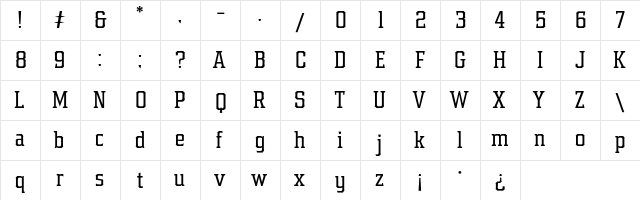
Samton Condensed
| Foundry | Ilham Herry Type Supply |
| Designer | Ilham Herry |
Design Context for Samton Typeface
Samton is a composed and adaptable typeface that performs quietly and consistently across a wide range of design contexts. The condensed width makes it efficient for tight spaces without sacrificing legibility.